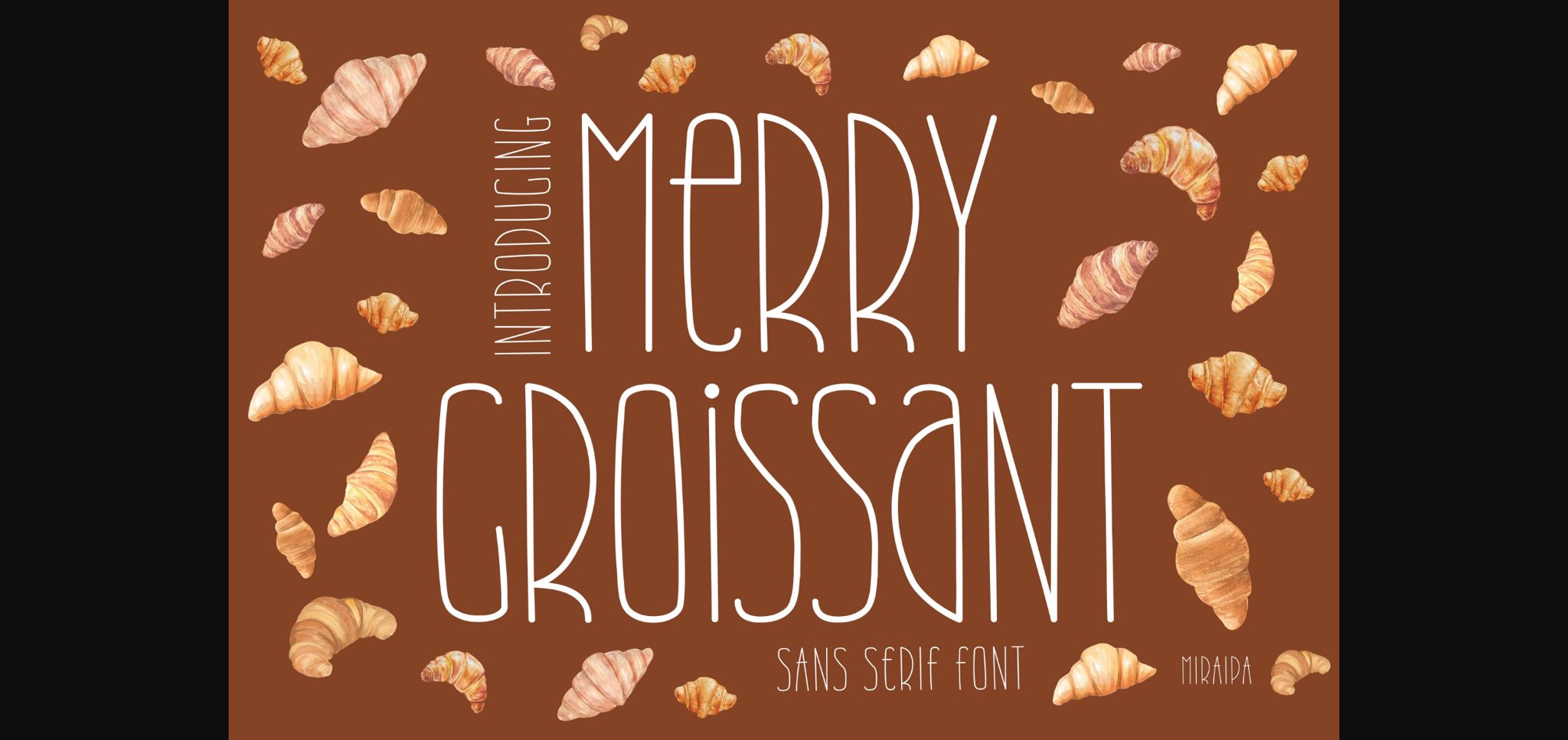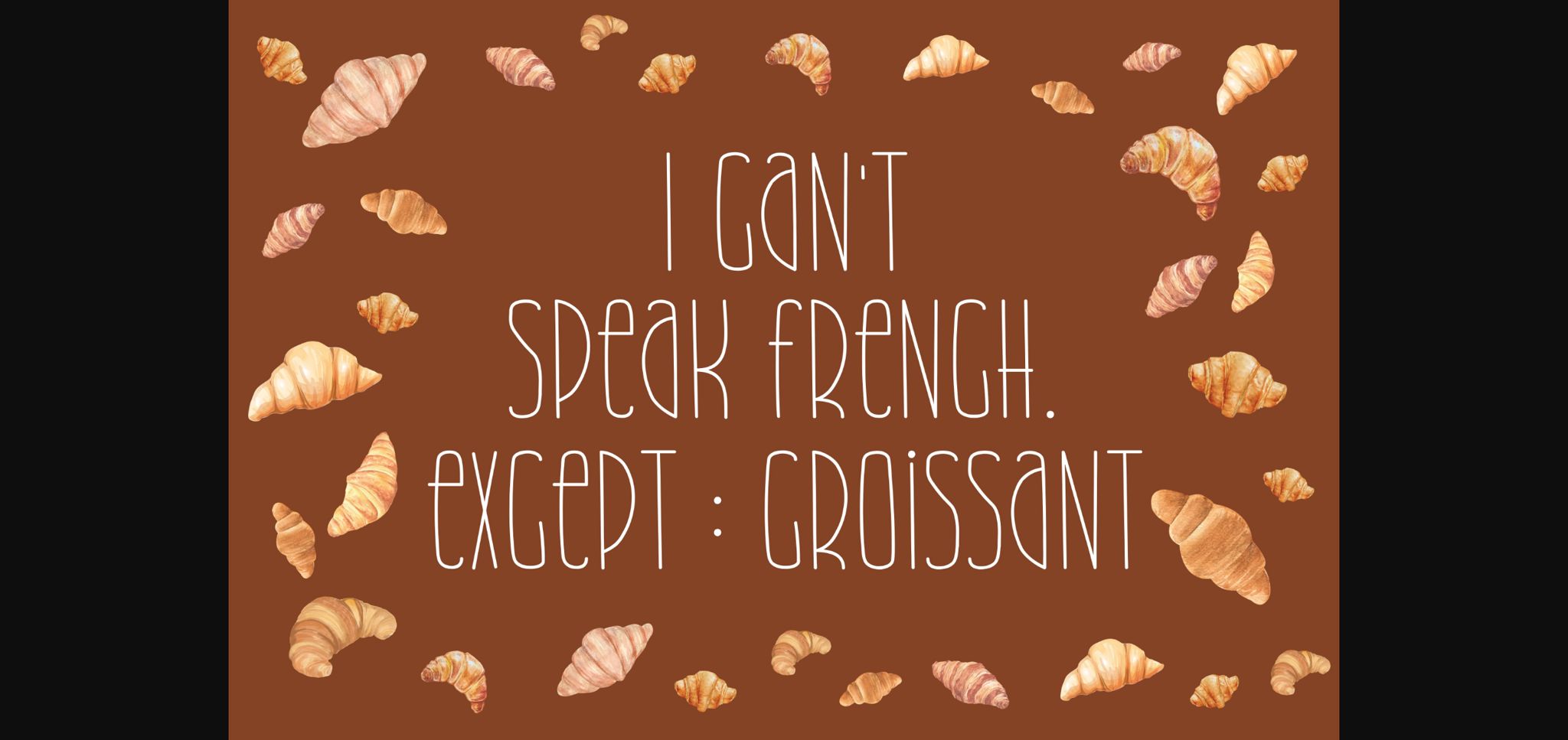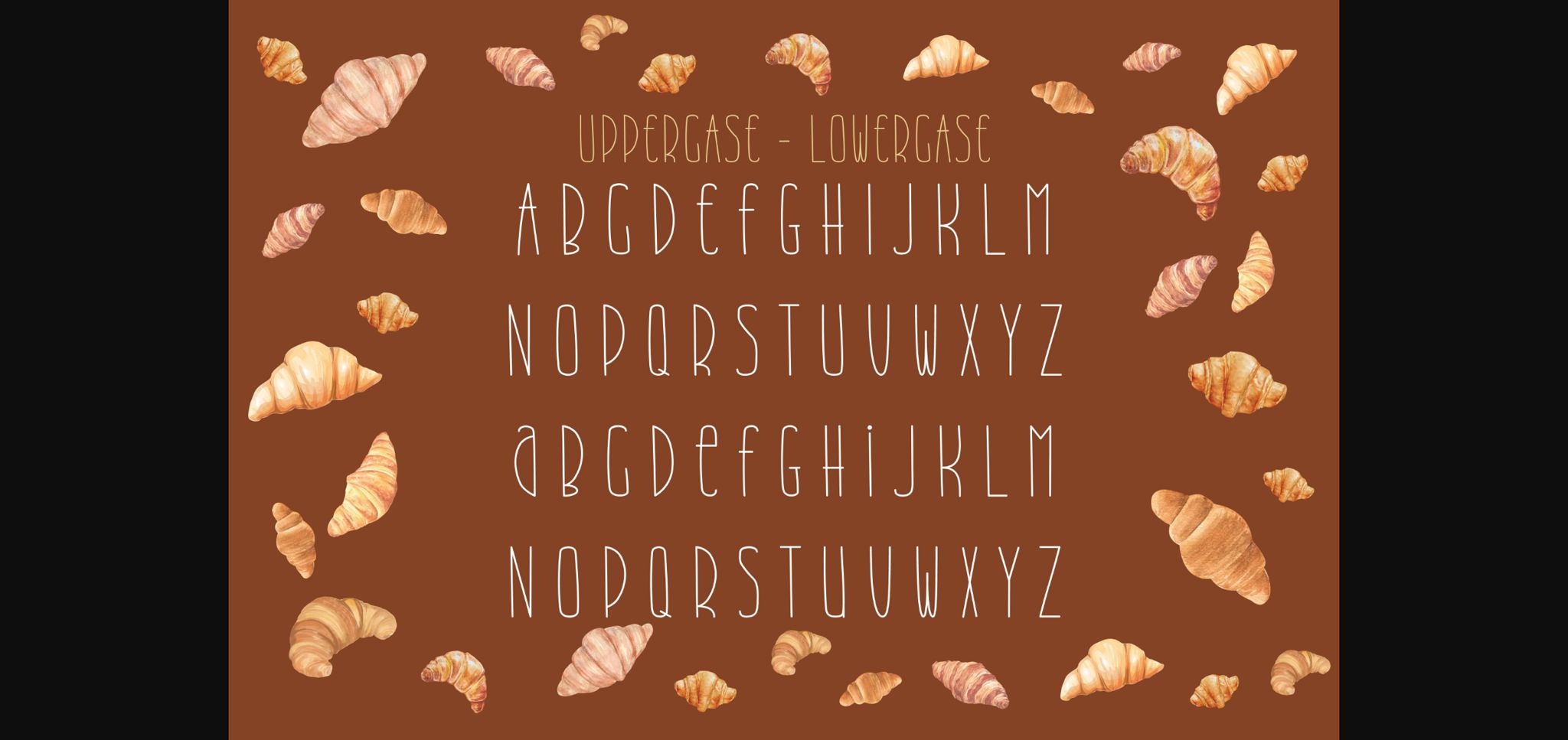
About Merry Croissant Font
Merry Croissant is a simple and friendly handwritten sans serif font. Whimsical and a bit quirky, this font will brighten up each of your designs. Add it confidently to your projects, and you will love the results. This typeface is perfect for logos, wedding invitations, quotes, advertisements, print, magazines, and more!